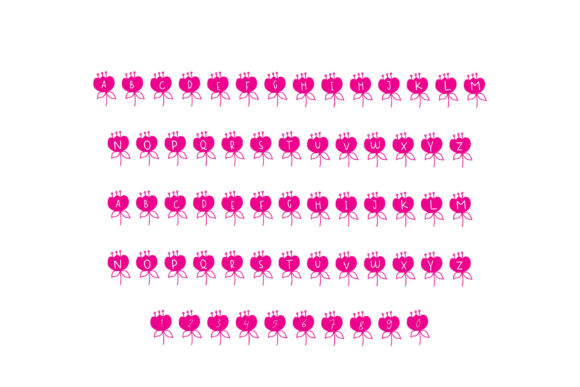
Introducing Flower Dingbats Font: The Perfect Addition to Your Design Projects
Are you looking for a font that adds a touch of romance and whimsy to your designs? Look no further than the Flower Dingbats Font. This dainty and unique decorative font is perfect for crafters, designers, and anyone looking to add a personal touch to their work. With its lovely and romantic appearance, Flower Dingbats Font is sure to astound you with its outcome.
What is Flower Dingbats Font?
Flower Dingbats Font is a decorative font that features intricate and beautiful floral designs. The font is made up of various flower shapes, leaves, and stems, which can be used to add a touch of elegance and sophistication to any design project. The font is perfect for use in a variety of applications, including love letters, wedding invitations, and other design ideas.
Why Use Flower Dingbats Font?
There are many reasons why you should consider using Flower Dingbats Font in your design projects. Here are just a few:
- Unique and eye-catching: The Flower Dingbats Font is a one-of-a-kind font that is sure to grab attention. Its unique and intricate designs will set your work apart from others.
- Romantic and lovely: The font has a romantic and lovely appearance that makes it perfect for use in love letters, wedding invitations, and other special occasions.
- Versatile: The font can be used in a variety of applications, from digital designs to print projects.
Design Ideas Using Flower Dingbats Font
The Flower Dingbats Font can be used in a variety of design projects. Here are some ideas to get you started:
- Wedding invitations: Use the font to create beautiful and romantic wedding invitations that will set the tone for the big day.
- Love letters: Add a touch of elegance and sophistication to your love letters with the Flower Dingbats Font.
- Stationery: Use the font to create custom stationery, including notecards, greeting cards, and letterhead.
- Digital designs: Use the font in digital designs, such as social media graphics, blog posts, and website headers.
The Flower Dingbats Font is a beautiful and unique decorative font that is perfect for designers and crafters looking to add a touch of romance and whimsy to their work. With its lovely and romantic appearance, this font is sure to astound you with its outcome. Whether you’re creating wedding invitations, love letters, or other design projects, the Flower Dingbats Font is a great choice.